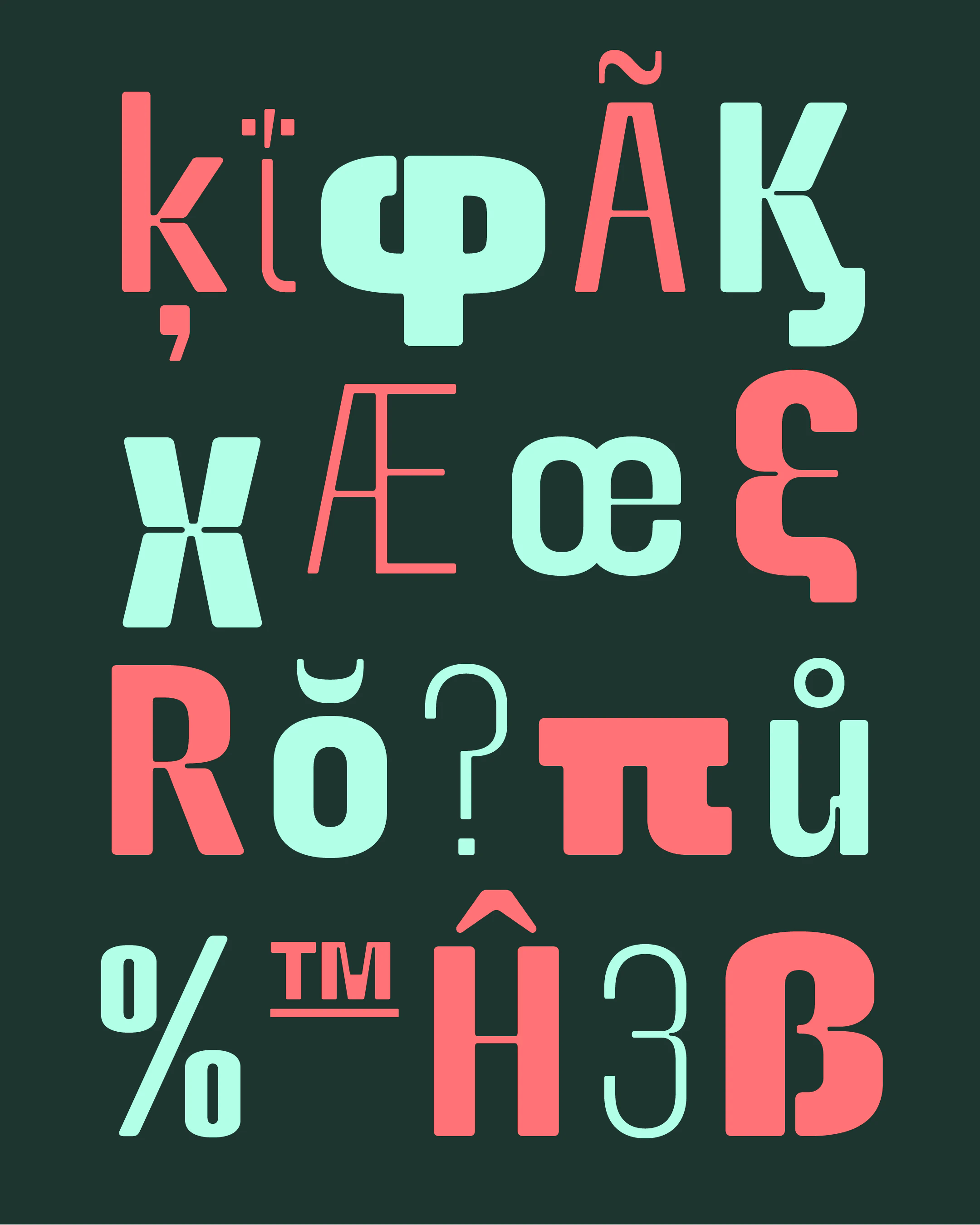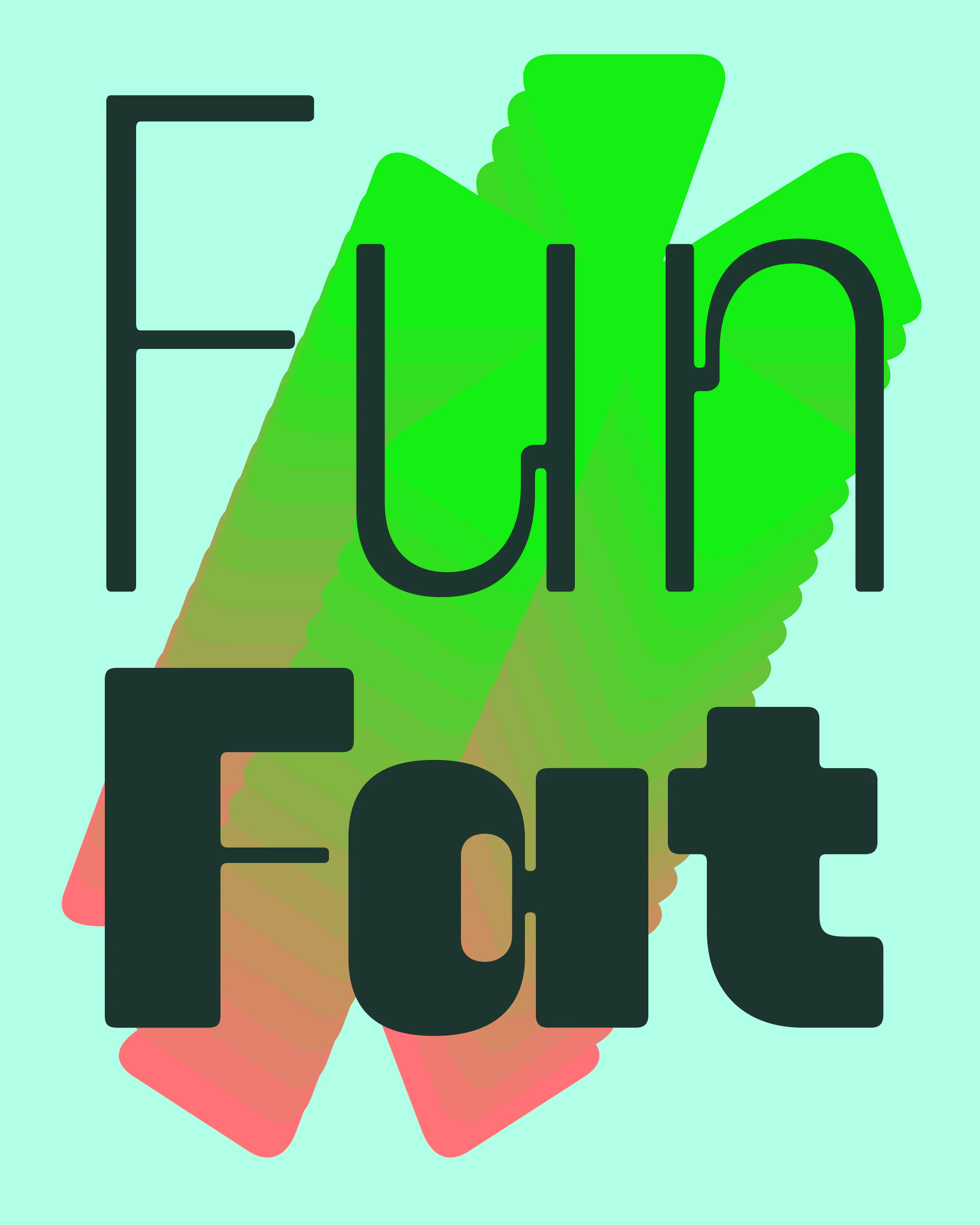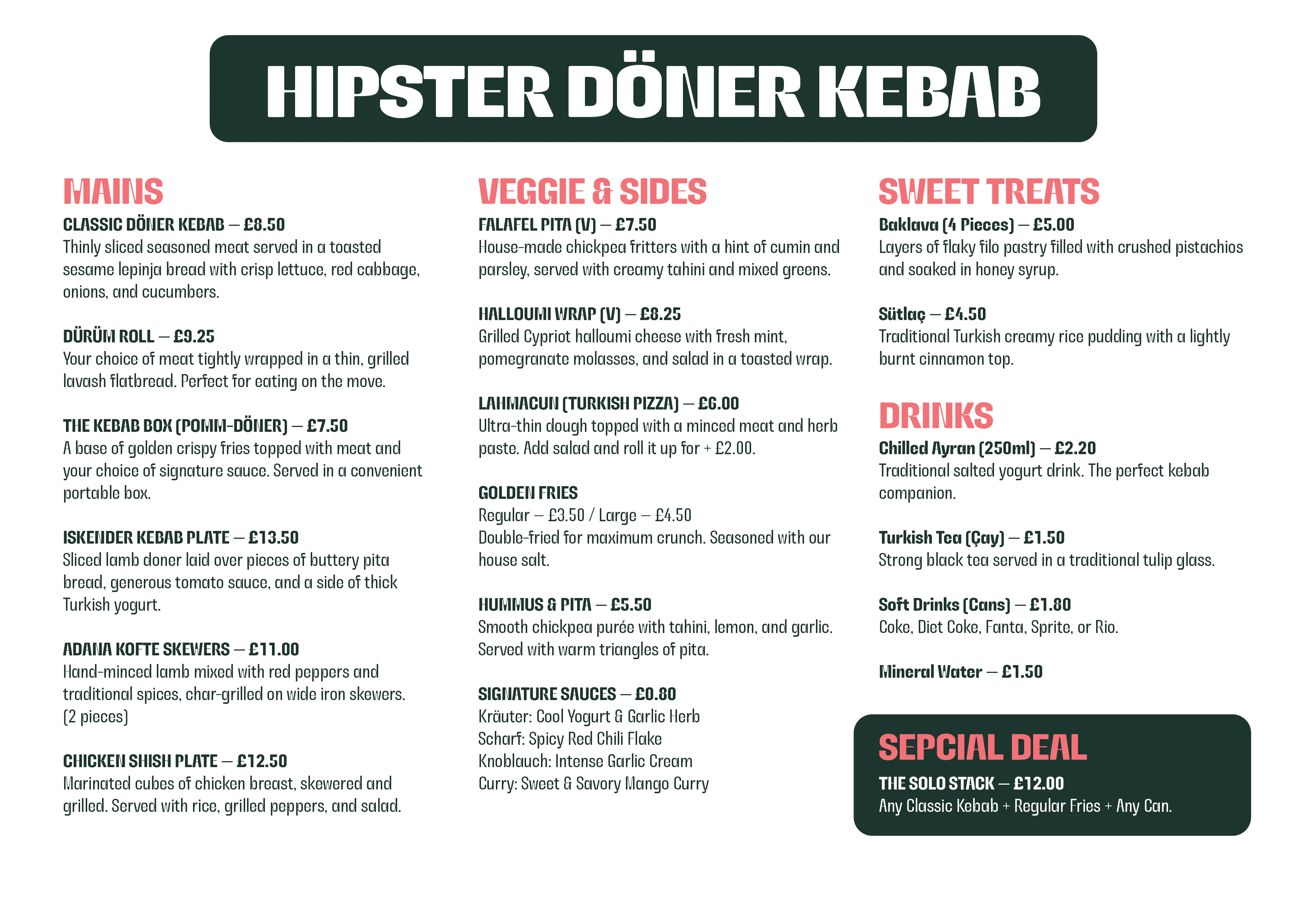
Kreuzberg
Kreuzberg takes ink traps to their natural extremes. They will not improve the readability, but they will make your head turn. It’s a sans serif geometric display with rounded corners. It supports greek and wide range of latin languages.
Made for eye-catching branding and bold visual statements. To brand your next startup or a hipstery kebab shop. It doesn’t take itself too seriously, while working at a wide range of tasks.